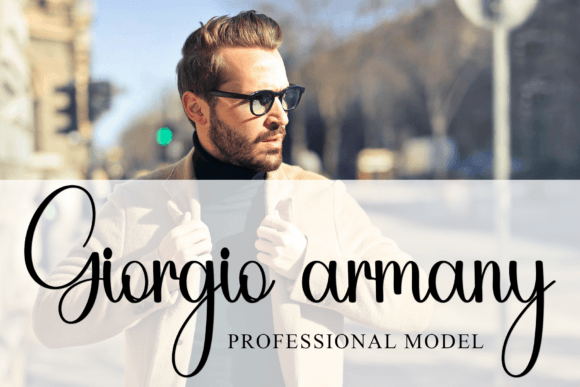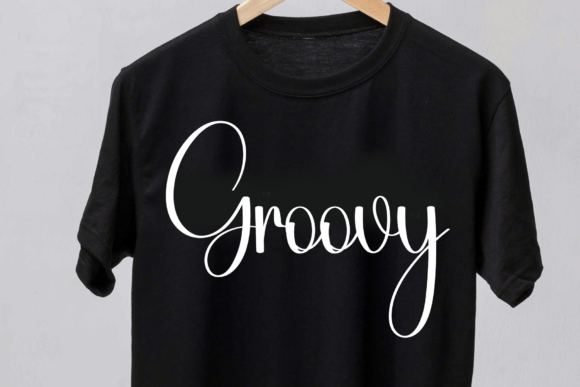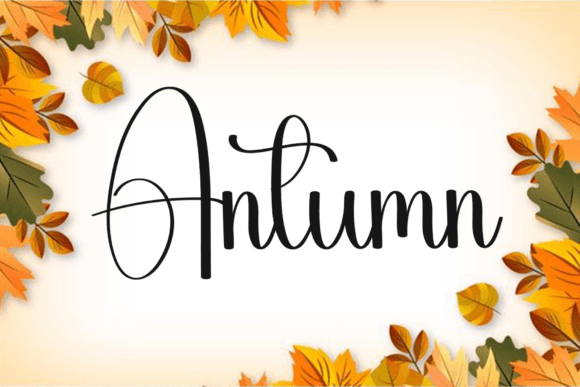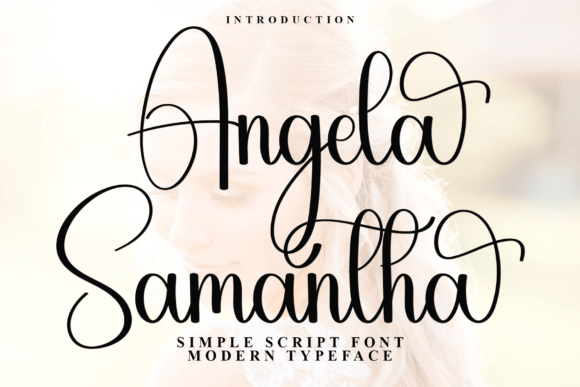
Introduction to Angela Samantha Font
Angela Samantha is an exquisite handwritten font, masterfully designed to become a true favorite.
Key Features of Angela Samantha Font
Why Choose Angela Samantha Font?
Angela Samantha Font offers exceptional quality and versatility, making it a valuable addition to your design toolkit. Whether you’re creating for personal projects or commercial use, Angela Samantha Font delivers professional results.